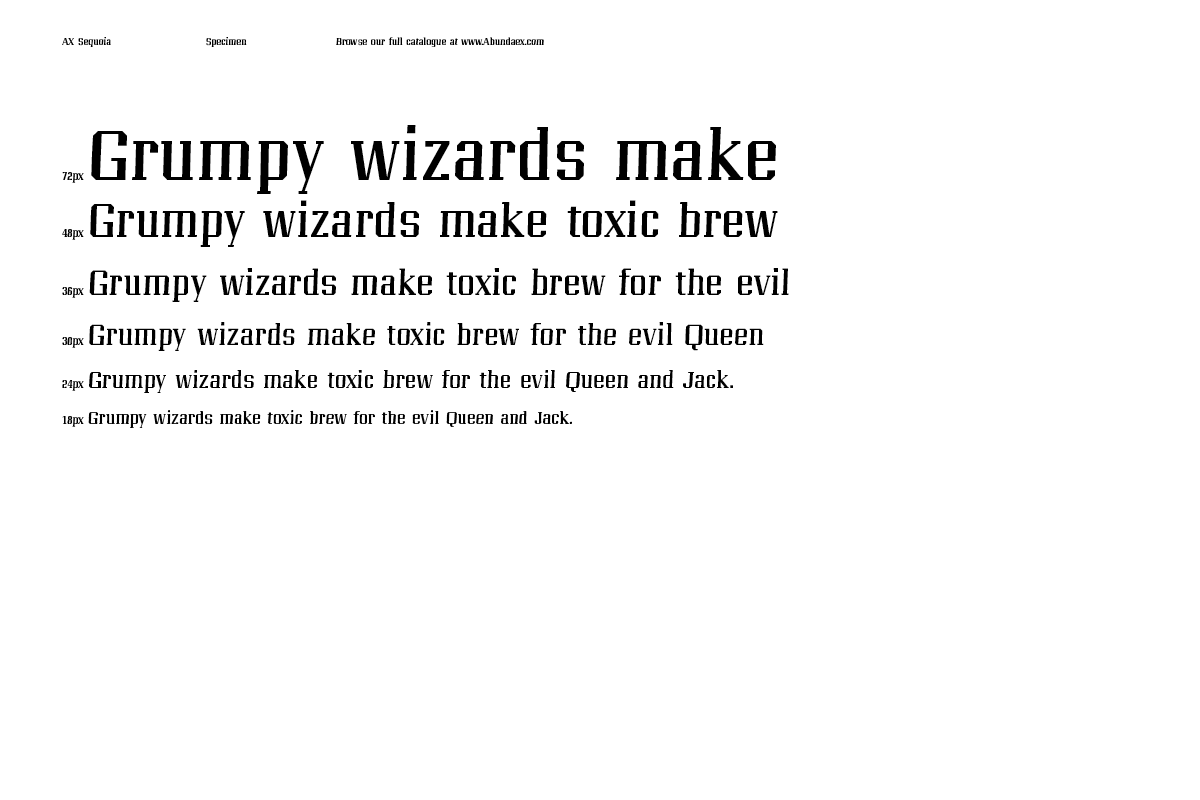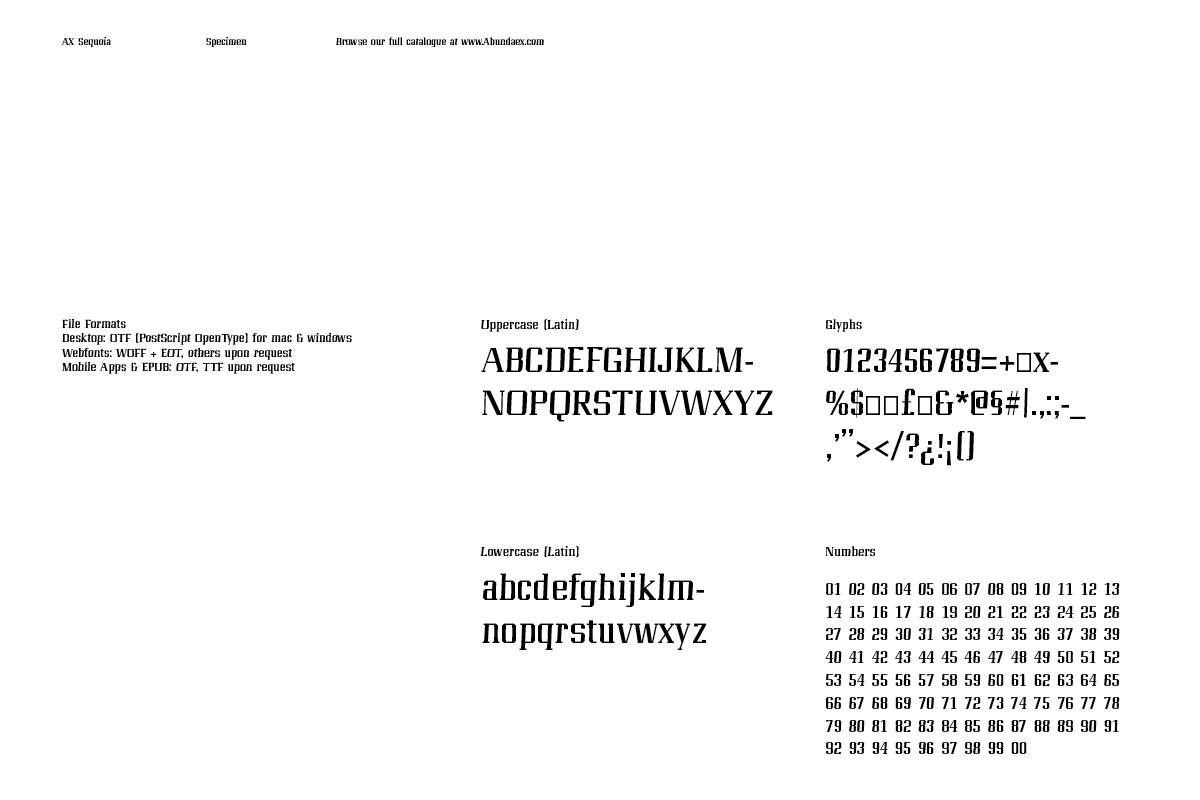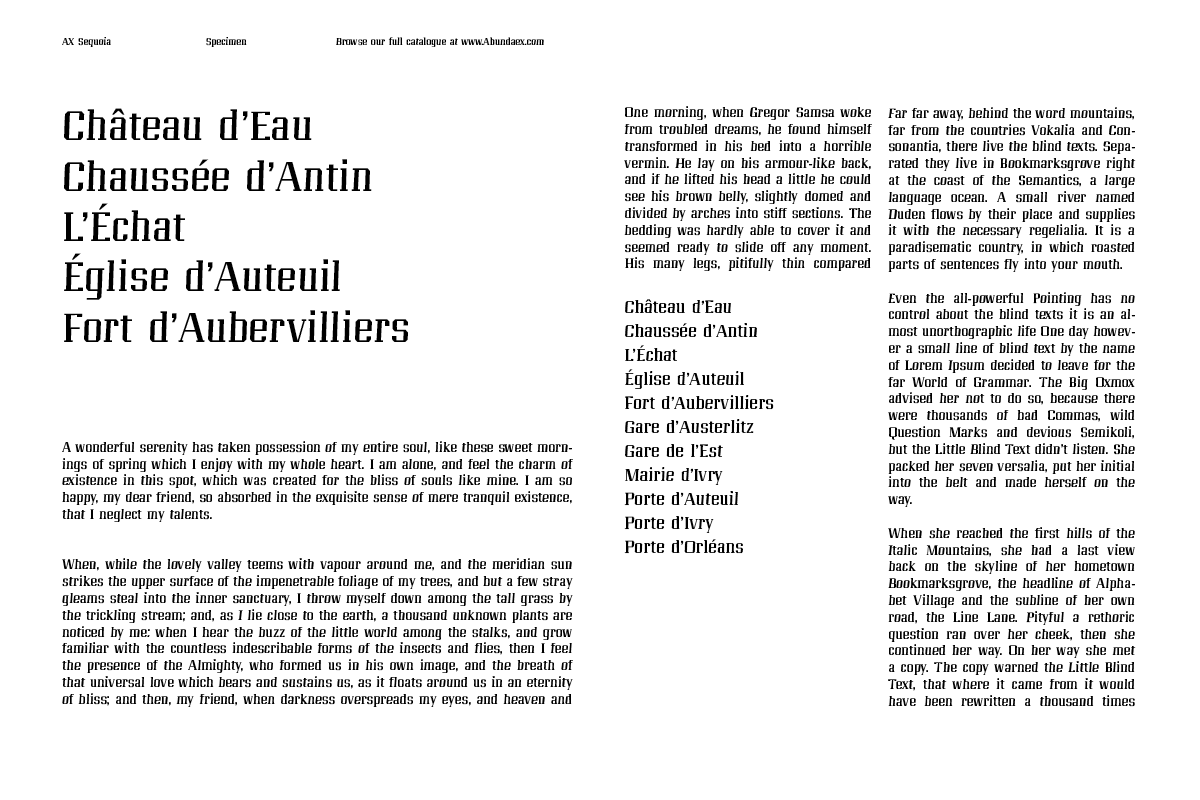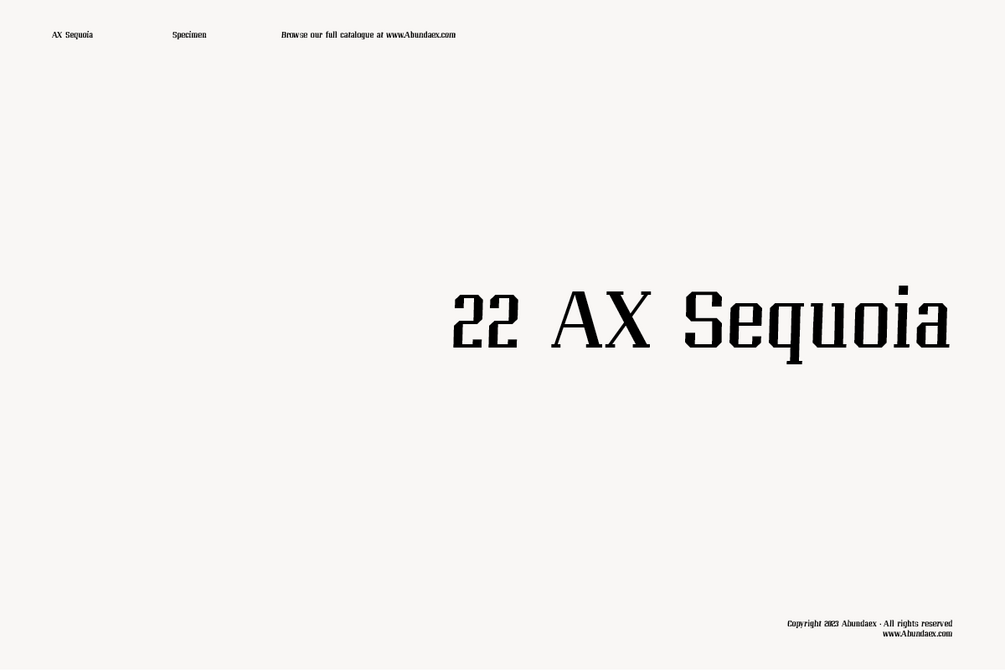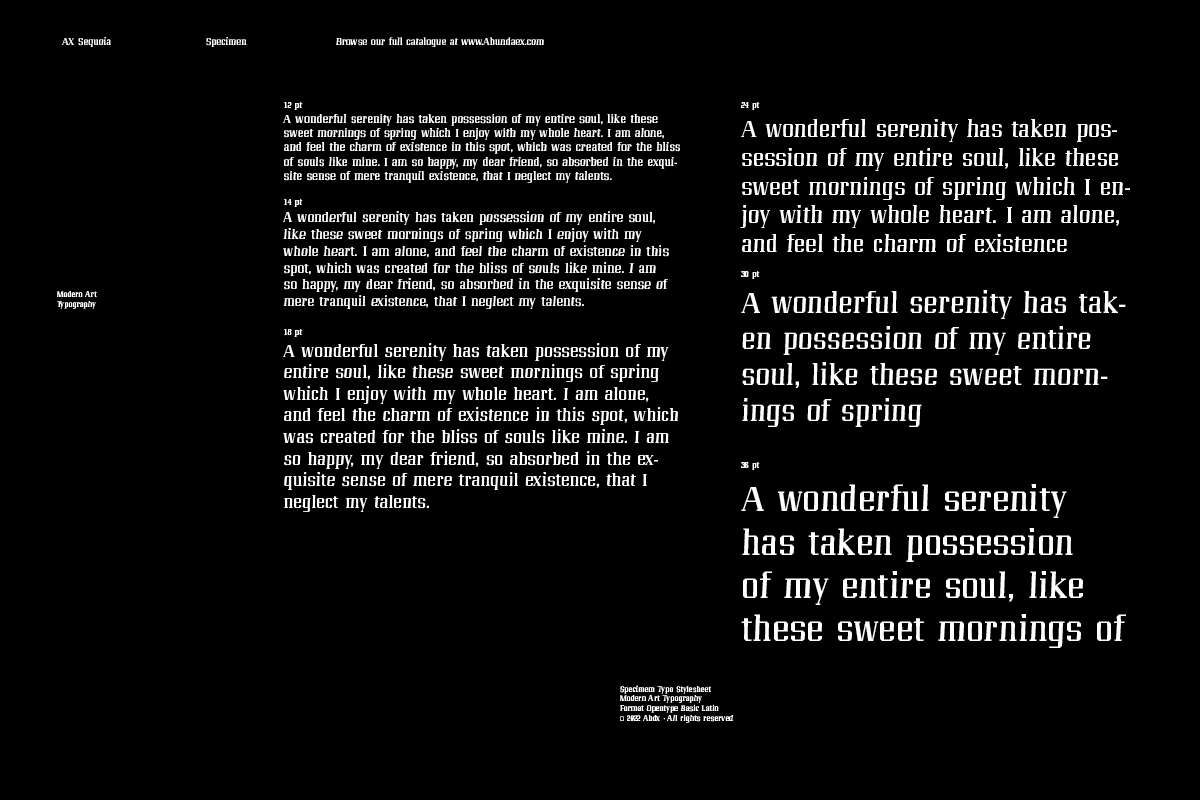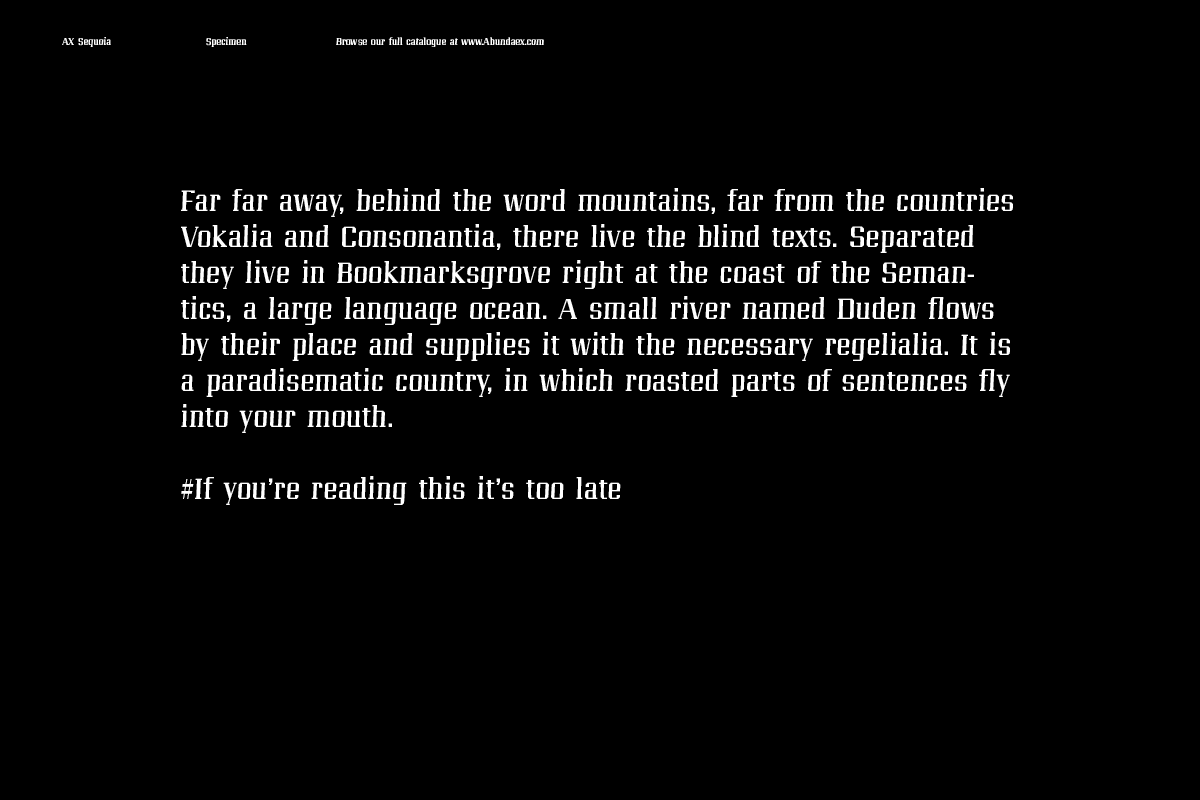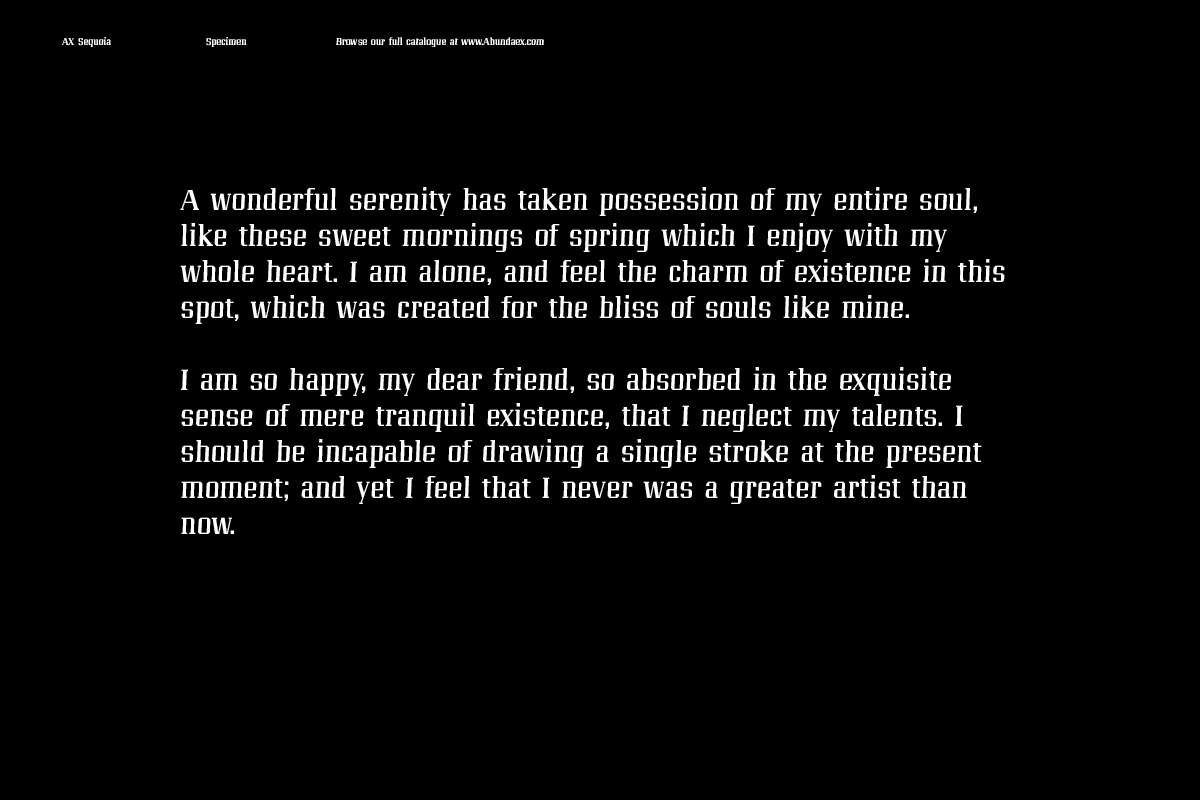
Sequoia Serif Font
An experimental font slight italic. Experimental typography is defined as the unconventional and more artistic approach to typeface selection.
- Form Slab Serif
- Weight(s) Regular
- Glyphs 369 Multilingual